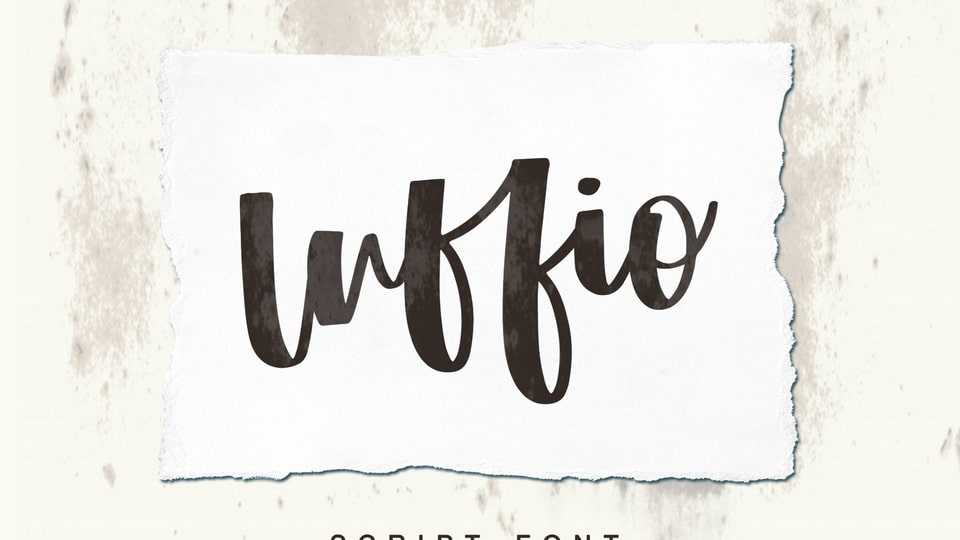
Download Luffio font, a modern, elegant script typeface designed for versatility and readability. It features clean lines, a sleek appearance, and a slightly rounded structure.